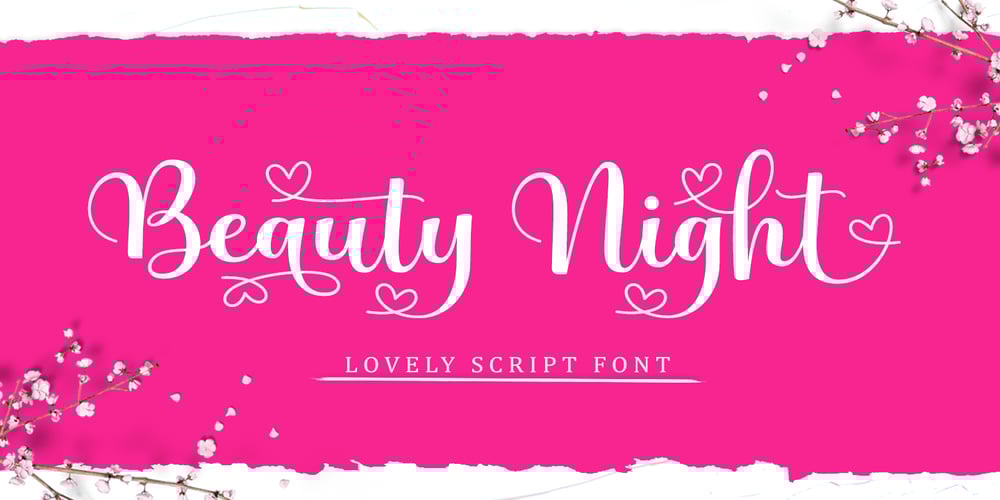
Beauty Night Script Font Family was designed by Rizki Andika and published by Letterfreshstudio. Beauty Night Script contains 2 styles and family package options. Beauty Night Script is a calligraphic script font that comes with exquisite character changes, a kind of classic decorative copper script with a modern twist, designed with high detail for an elegant style.Beauty Night is interesting because it is smooth, clean, feminine, sensual, glamorous, simple and very easy to read, because there are many fancy letter joints. I also offer a number of decent stylistic alternatives for multiple letters. Classic styles are very suitable to be applied in various formal forms such as invitations, labels, restaurant menus, logos, fashion, make up, stationery, novels, magazines, books, greeting / wedding cards, packaging, labels or all kinds of advertising purposes. .To activate the OpenType Stylistic alternative, you need a program that supports OpenType features such as Adobe Illustrator CS, Adobe Indesign & CorelDraw X6-X7, Microsoft Word 2010 or newer versions. There are additional ways to access alternatives / swash, using Character Map (Windows), Nexus Fonts (Windows), Font Books (Mac) or software programs such as PopChar (for Windows and Mac).Thanks You.